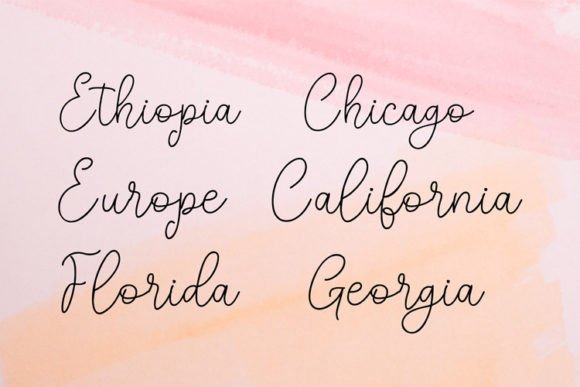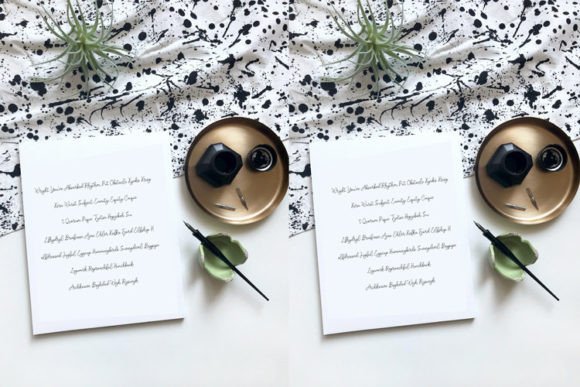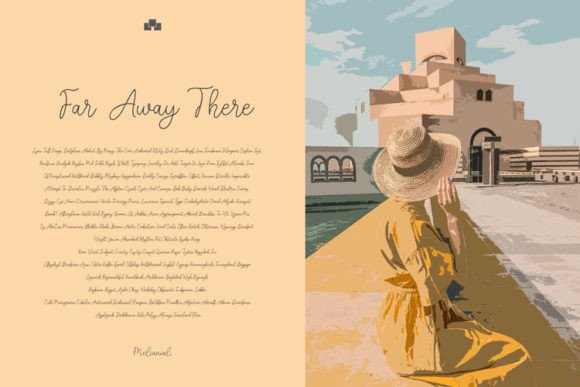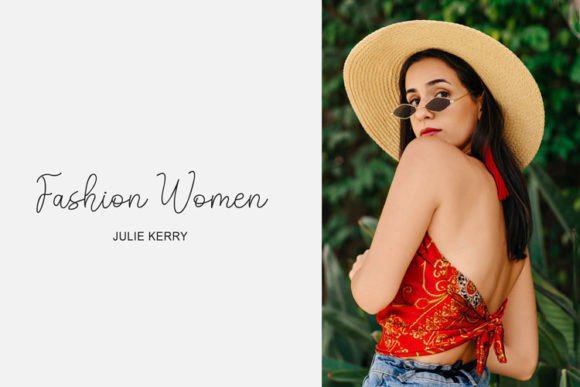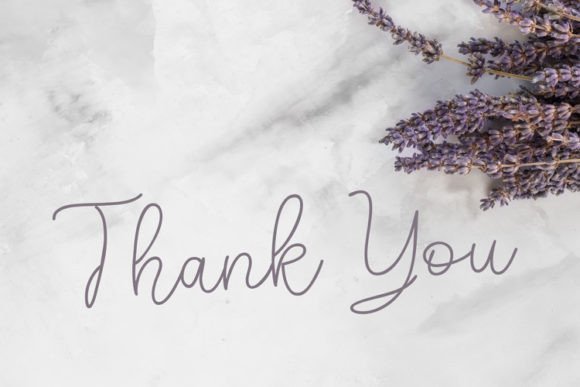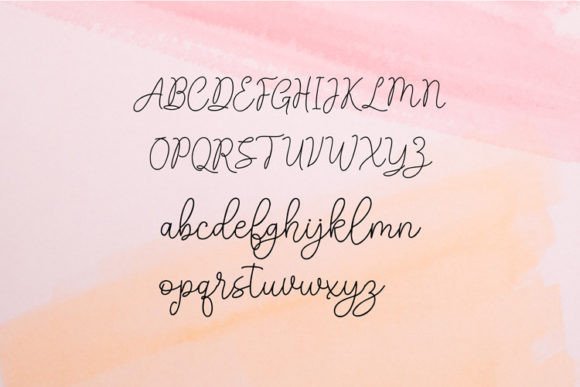
The Ardaini Font: Elevate Your Designs with Elegance
I’ll never forget the time I was working on a branding project for a luxury wedding planner. I had spent hours agonizing over the perfect logo design, but something was missing. The font I had chosen just wasn’t doing justice to the beautiful, elegant aesthetic I was trying to convey. That’s when I stumbled upon the Ardaini font. With its modern, calligraphic flair, it instantly elevated my design and turned it into a stunning masterpiece. If you’re a designer, crafter, or creative hobbyist looking for a font that exudes class and sophistication, you’re in the right place!
An Honest Review of Ardaini Font
- ✨ Beautiful rhythm and flow: Ardaini’s calligraphic style gives it a sense of movement and fluidity that’s hard to find in other fonts.
- ✅ Elegant and classy: This font is perfect for creating sophisticated designs that will leave a lasting impression.
- 💻 PUA encoded: With Ardaini, you can easily access all glyphs and make the most of its OpenType features.
While Ardaini is an amazing font, there are a few things to keep in mind:
- ⚠️ Limited use in very formal or traditional contexts: Ardaini’s modern twist might not make it the best fit for very formal or traditional designs.
- 🤔 May require some experimentation: To get the most out of Ardaini’s OpenType features, you might need to do some trial and error.
A Practical Guide to Using Ardaini Font
The Story Behind Ardaini
Ardaini was designed with the intention of creating a modern, elegant calligraphic font that would bring a touch of sophistication to any design. Inspired by traditional calligraphy, Ardaini’s creator aimed to craft a font that would be both beautiful and versatile. The result is a stunning font that’s perfect for a wide range of creative projects.
A: PUA (Private Use Area) encoding allows you to access a font’s glyphs and OpenType features more easily. With Ardaini, this means you can effortlessly add special characters, ligatures, and stylistic alternates to your designs.
Q: Is Ardaini suitable for body text?
A: While Ardaini is an elegant font, it’s primarily designed for titles, headings, and short paragraphs. For body text, you might want to choose a font with better readability.